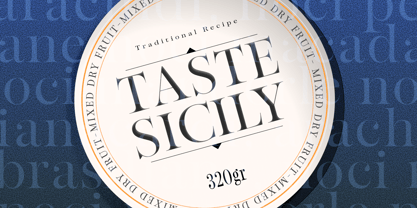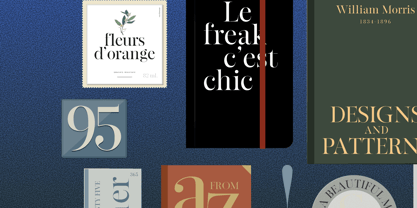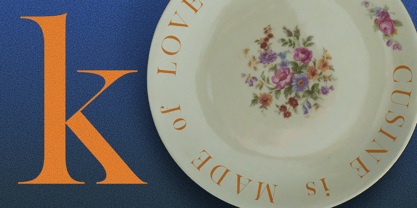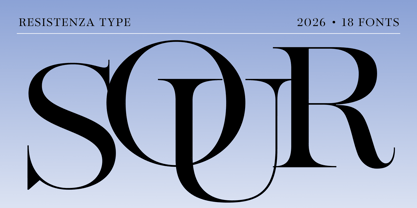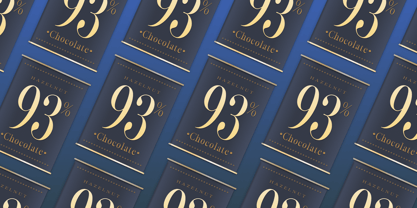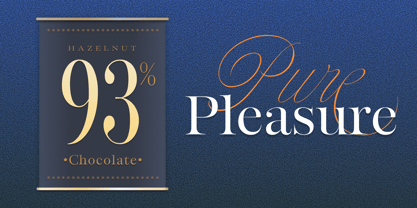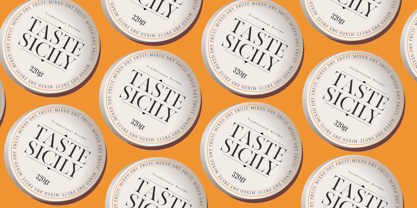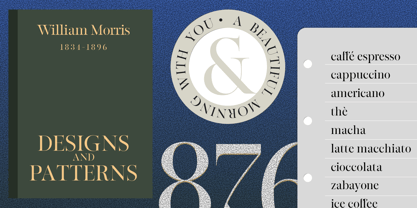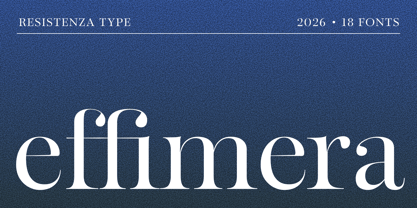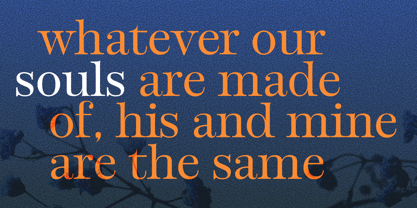
Effimera
by Resistenza
The Effimera Font Family was designed by Giuseppe Salerno, Paco González and published by Resistenza. Effimera contains 18 styles and family package options. More about this family
Effimera is a high-contrast modern serif typeface that exudes elegance, sophistication, and luxury. Belonging to the Didone classification, it features a refined design marked by strong vertical stress, dramatic contrast between thick and thin strokes, and crisp, hairline serifs. Distinctive details like ball terminals on characters such as “g” and “a” add a delicate, ornamental quality that enhances its graceful tone. The uppercase letters display elongated vertical proportions, while the generous x-height aids in legibility at display sizes. Inspired by classic typefaces like Bodoni and Didot, Effimera offers a contemporary interpretation of timeless style.
This font thrives in high-end visual environments where style and refinement are essential. It is particularly well-suited for luxury branding, fashion editorials, cosmetic packaging, magazine headlines, and upscale event promotions. Whether used in print or digital formats, Effimera brings a sense of poise and polish, making it a perfect choice for design contexts that demand beauty and sophistication.
Designers: Giuseppe Salerno, Paco González
Foundry: Resistenza